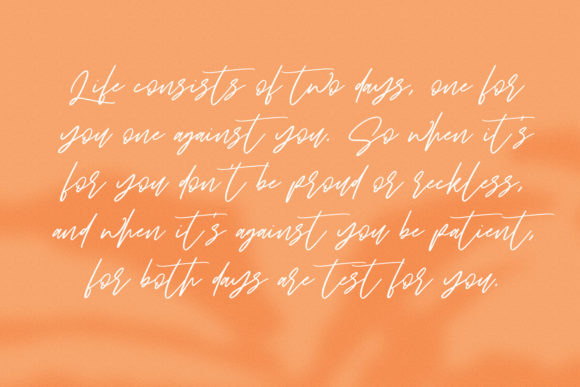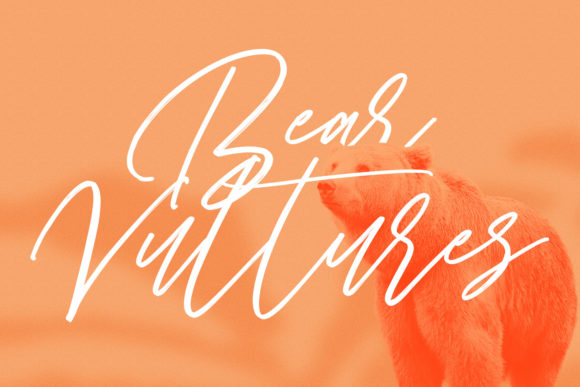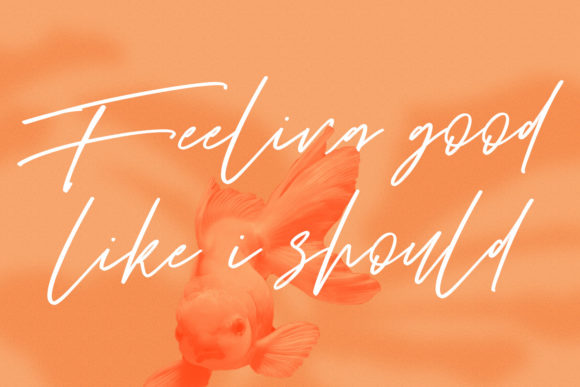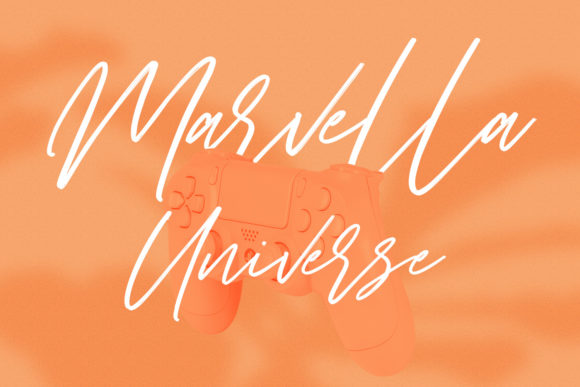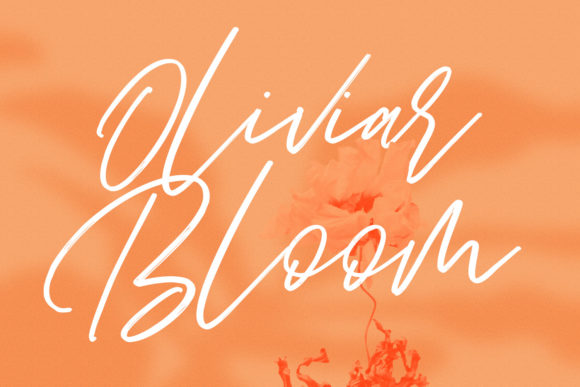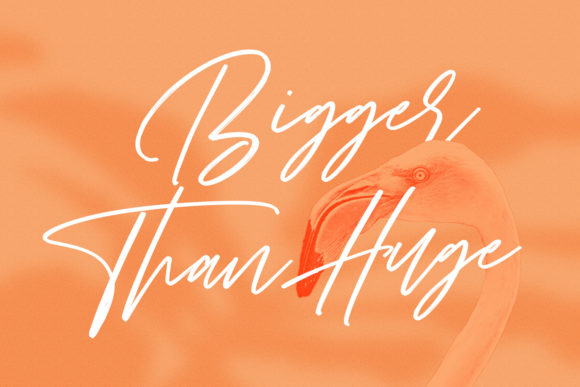
Introduction to Queen Sheila Font
Queen Sheila is an exquisite handwritten font, masterfully designed to become a true favorite.
Key Features of Queen Sheila Font
Why Choose Queen Sheila Font?
Queen Sheila Font offers exceptional quality and versatility, making it a valuable addition to your design toolkit. Whether you’re creating for personal projects or commercial use, Queen Sheila Font delivers professional results.